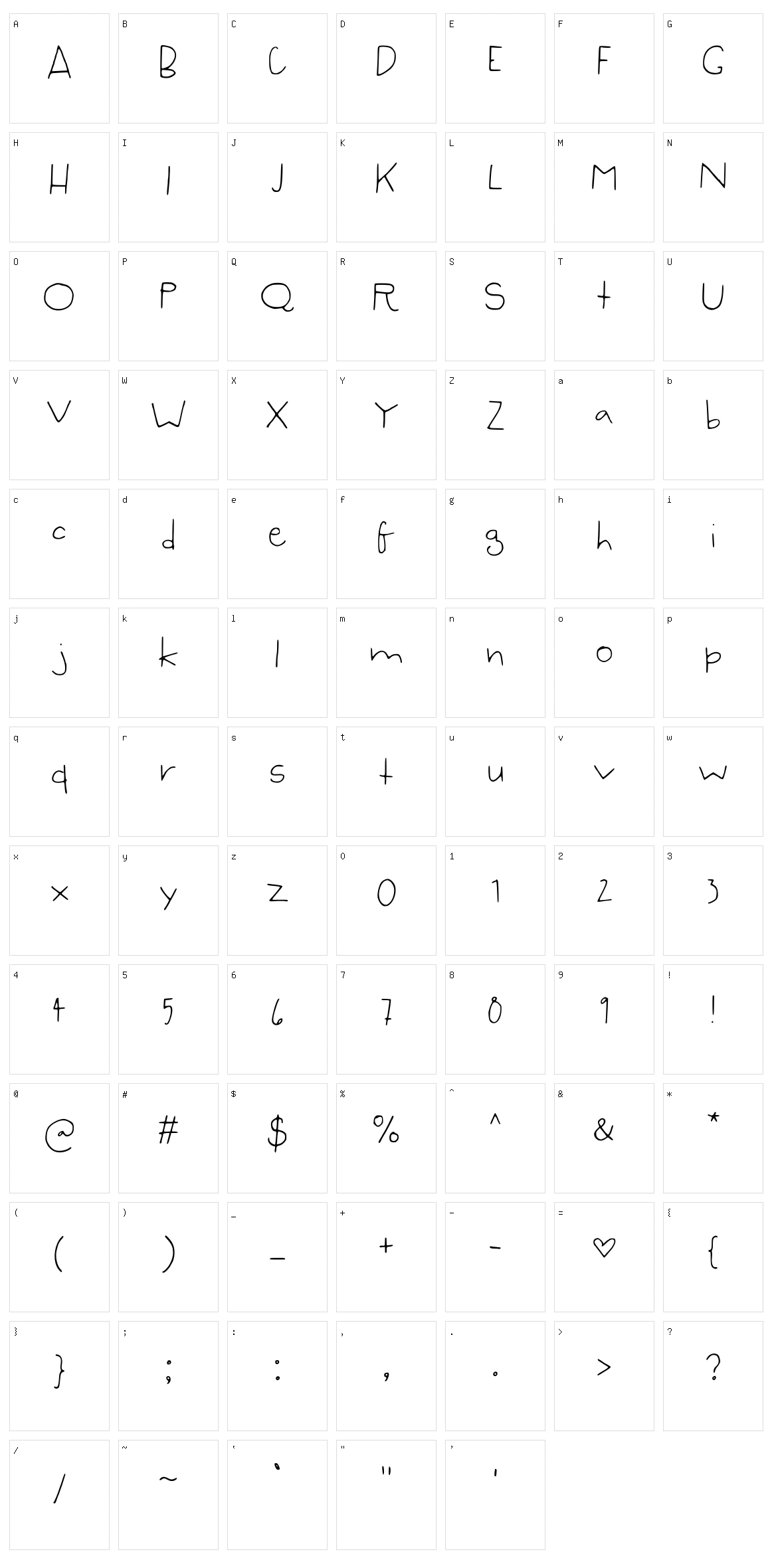
The free font Syzygy Hand is carefully designed by Ray of Light Design, showcasing a thoughtful balance of creativity and usability and falls under the Script font style. When you download the ZIP file, it contains only 13.04 KB of font files, making it lightweight and quick to download. Please review the license details below to understand permitted usage and distribution rights. If license information is not available, we recommend using this font for personal projects only or contacting the author directly for commercial usage permissions.